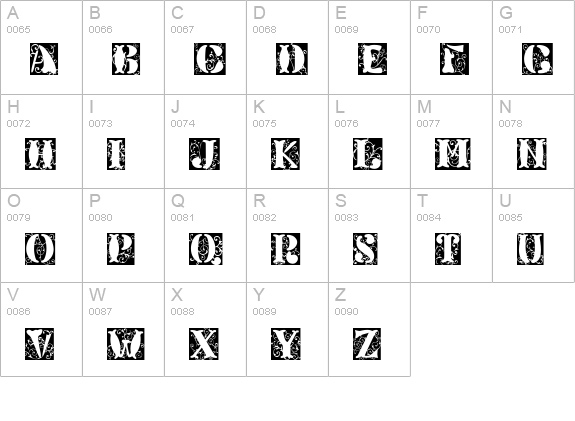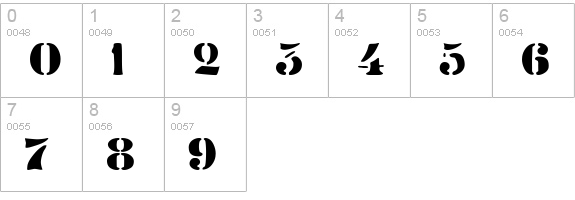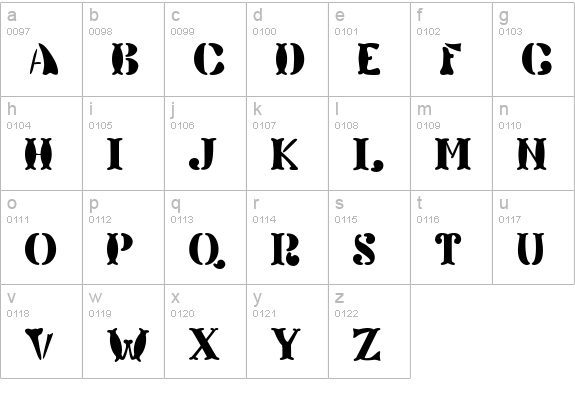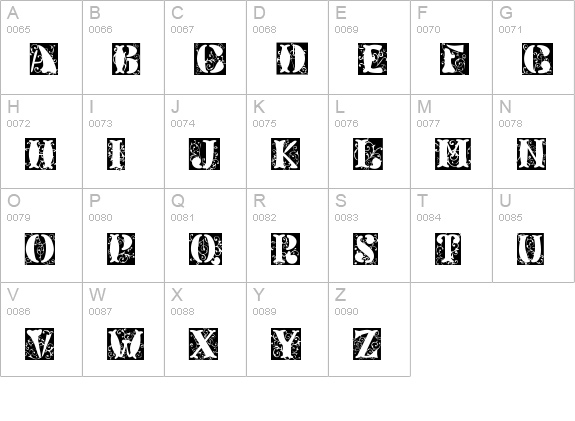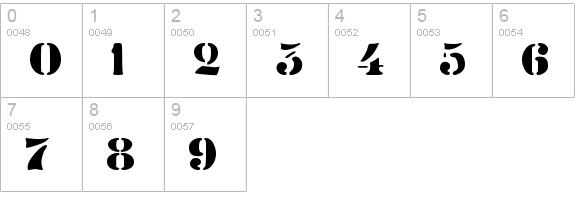
Veneto Font Details
Veneto font is a stunning typeface that effortlessly combines elegance and sophistication. Its graceful curves and clean lines make it a perfect choice for a wide range of design projects, from branding and advertising to invitations and packaging. This versatile font exudes a sense of timeless beauty, making it suitable for both modern and classic designs. One of the most appealing aspects of Veneto font is that it is available for free. This means that designers and creatives can easily access and use this exquisite font without any cost involved. It offers a wonderful opportunity for professionals and enthusiasts alike to add a touch of elegance to their work without breaking the bank. Whether you are a graphic designer looking for a font that will elevate your designs to the next level or a hobbyist searching for a beautiful typeface to enhance your personal projects, Veneto font is the perfect choice. And the best part is, you can download it for free at FontsMarket.com. FontsMarket.com is a trusted online platform that offers a vast collection of high-quality fonts, and Veneto font is one of the many gems available for free on their website. With just a few clicks, you can have this remarkable font at your fingertips, ready to bring your creative visions to life. So why wait? Experience the beauty and versatility of Veneto font today. Download it for free at FontsMarket.com and let your designs shine with elegance and sophistication.